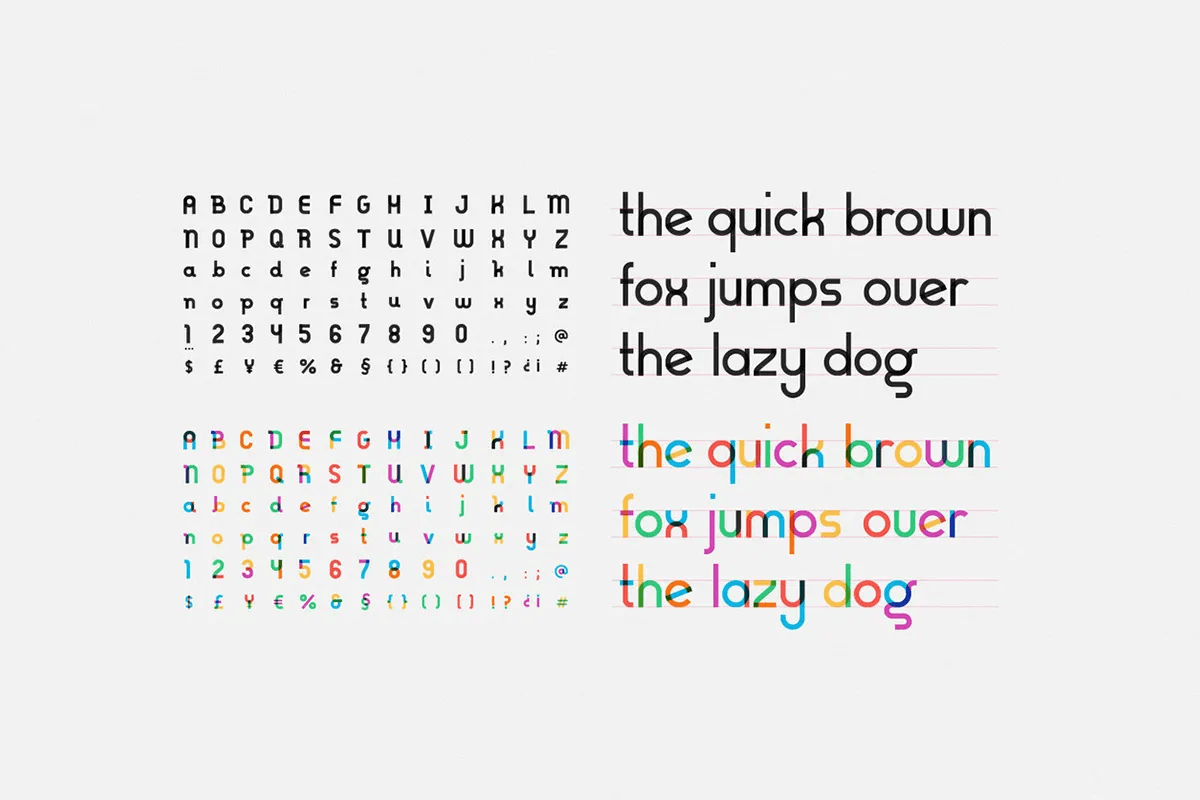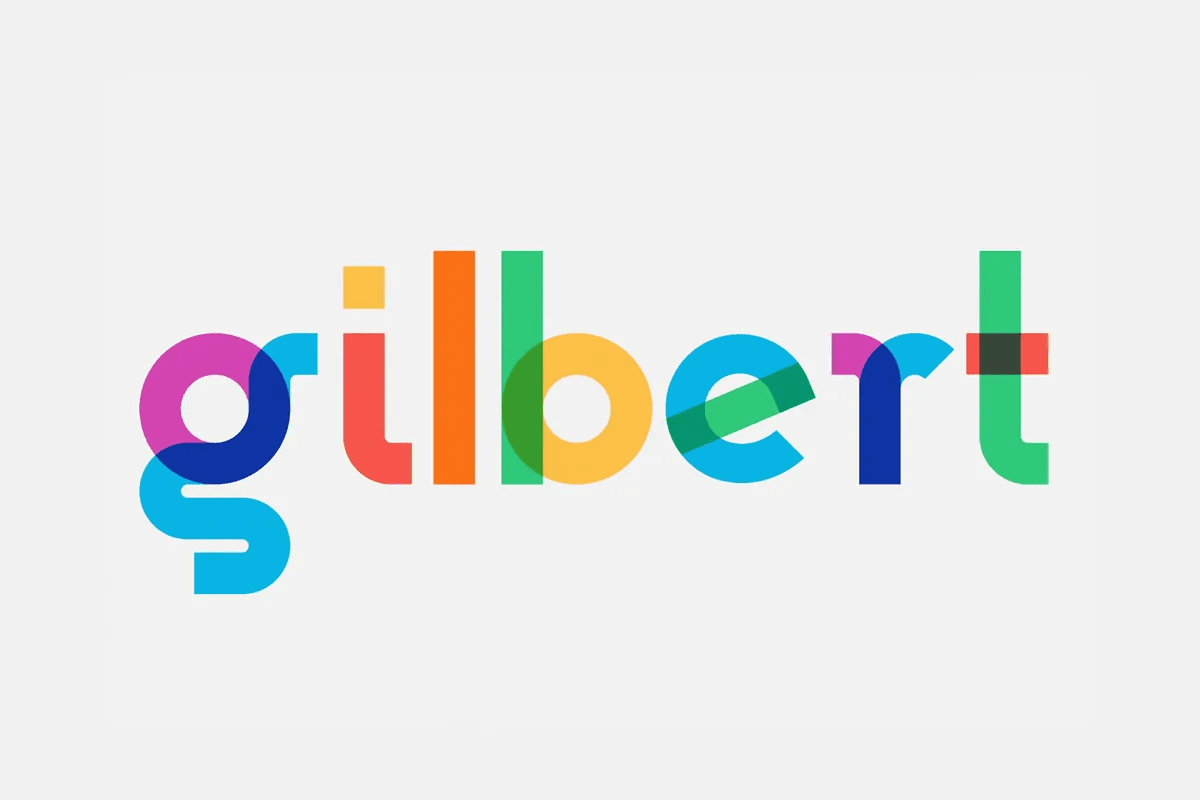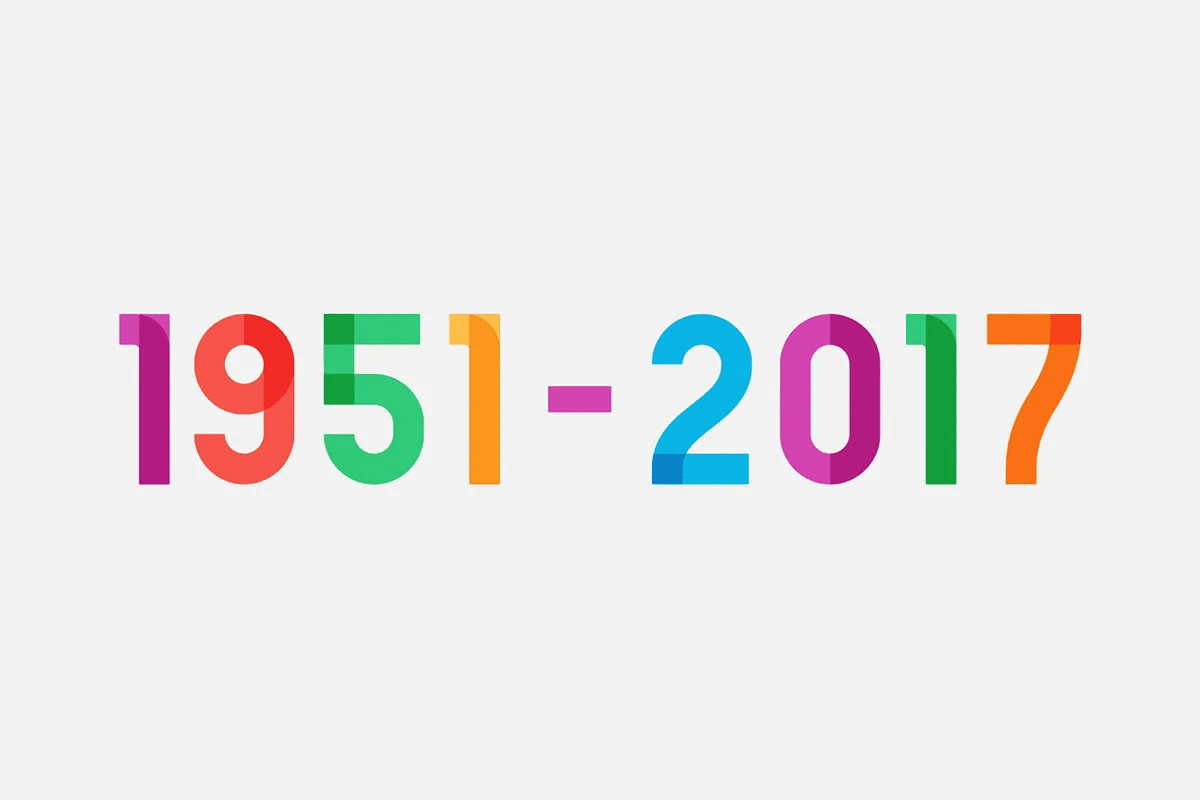
Gilbert Free Animated Typeface is a font that was originally coming for striking headlines and statements. It can live on banners for rallies and protests. It now currently comes into a whole family of weights and styles. In addition, the font is available in two versions, a standard vector font and a color font (in OpenType-SVG format). Also, it is currently usable in Photoshop CC 2017 only.